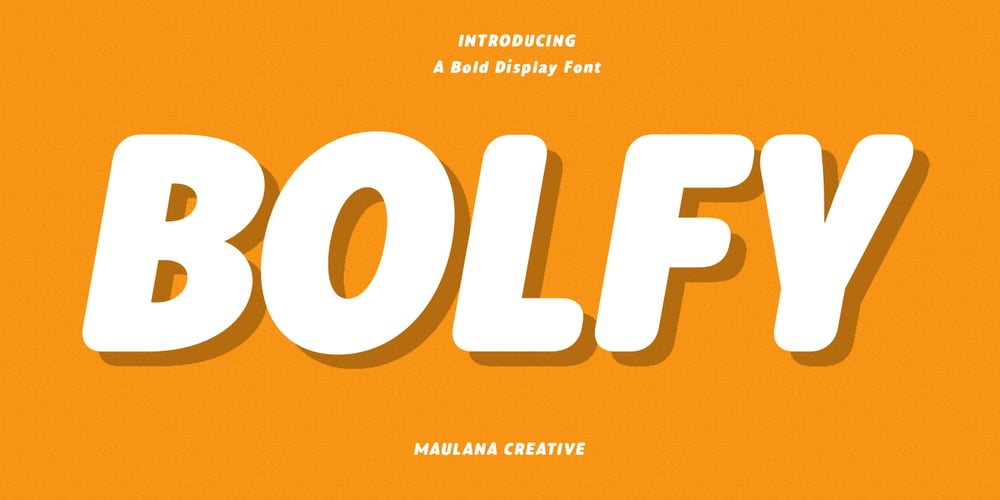
MC Bolfy Font Family was designed by Gilang Maulana and published by Maulana Creative. MC Bolfy contains 1 styles and family package options. Bolfy is a casual marker clean handwritten sans font. With medium low contrast stroke, fun character with a bit of ligatures and alternates. To give you an extra creative work. Bolfy font support multilingual more than 100+ language. This font is good for logo design, Social media, Movie Titles, Books Titles, a short text even a long text letter and good for your secondary text font with script or serif. Make a stunning work with Bolfy font. Cheers, Maulana Creative